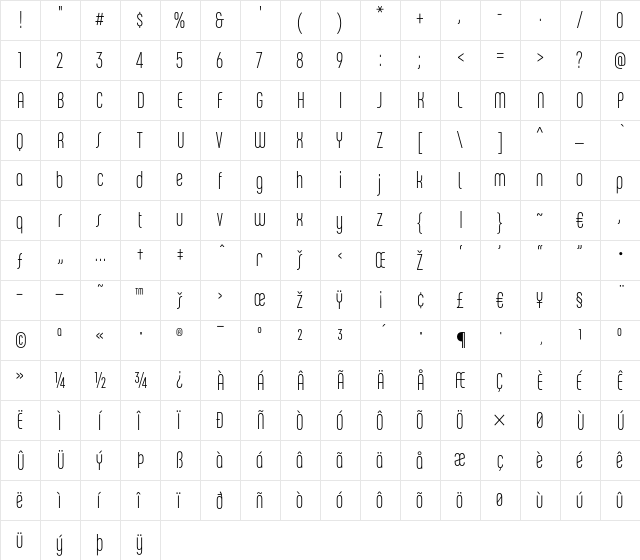
ChaletComprime-MilanSeventy Regular
Design Context for ChaletComprime-MilanSeventy Typeface
ChaletComprime-MilanSeventy takes a measured approach to typography — its balanced proportions and neutral character make it a reliable workhorse for both digital and print work.